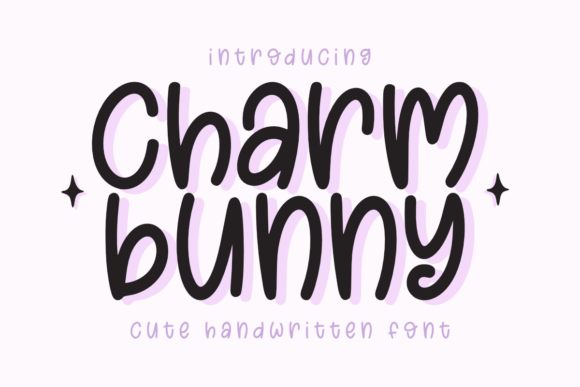
Introducing Charm Bunny Font: The Perfect Handwritten Font for Creative Moms
Are you a creative mom who loves DIY projects, journaling, and Cricut crafts? Look no further! We’re excited to introduce Charm Bunny Font, a cute and playful handwritten font that’s perfect for planners, stickers, cards, quotes, and craft projects. In this article, we’ll explore the features and benefits of Charm Bunny Font and how it can elevate your creative projects.
What is Charm Bunny Font?
Charm Bunny Font is a unique and charming handwritten font designed specifically for creative moms who love DIY projects. The font is carefully crafted to be cute, playful, and easy to read, making it perfect for a variety of projects, including:
- Planners and organizers
- Stickers and labels
- Cards and invitations
- Quotes and inspirational messages
- Craft projects, such as journaling and scrapbooking
Benefits of Using Charm Bunny Font
So, why choose Charm Bunny Font for your creative projects? Here are just a few benefits:
- Unique and playful design: Charm Bunny Font has a distinctive and charming design that will add a personal touch to your projects.
- Easy to read: The font is carefully crafted to be easy to read, even at small sizes.
- Versatile: Charm Bunny Font can be used for a wide range of projects, from planners and stickers to cards and craft projects.
- Perfect for creative moms: The font is designed specifically with creative moms in mind, making it a great choice for anyone who loves DIY projects, journaling, and Cricut crafts.
How to Use Charm Bunny Font
Charm Bunny Font is a versatile font that can be used in a variety of ways. Here are a few ideas to get you started:
- Planners and organizers: Use Charm Bunny Font to add a personal touch to your planners and organizers. You can use it to create headings, titles, and labels.
- Stickers and labels: Charm Bunny Font is perfect for creating stickers and labels for your craft projects. You can use it to add cute and playful text to your stickers and labels.
- Cards and invitations: Use Charm Bunny Font to create beautiful and unique cards and invitations. You can use it to add a personal touch to your messages.
- Quotes and inspirational messages: Charm Bunny Font is perfect for creating quotes and inspirational messages. You can use it to add a touch of personality to your quotes and messages.
- Craft projects: Charm Bunny Font can be used for a wide range of craft projects, including journaling, scrapbooking, and Cricut crafts.
Tips and Tricks for Using Charm Bunny Font
Here are a few tips and tricks for using Charm Bunny Font:
- Experiment with different sizes: Charm Bunny Font can be used at a variety of sizes, from small to large. Experiment with different sizes to find the one that works best for your project.
- Mix and match with other fonts: Charm Bunny Font can be paired with other fonts to create a unique and interesting look. Experiment with different font combinations to find the one that works best for your project.
- Use it for titles and headings: Charm Bunny Font is perfect for titles and headings. Use it to add a touch of personality to your project.
- Don’t be afraid to get creative: Charm Bunny Font is a versatile font that can be used in a wide range of projects. Don’t be afraid to get creative and try new things!
In conclusion, Charm Bunny Font is a cute and playful handwritten font that’s perfect for creative moms who love DIY projects, journaling, and Cricut crafts. With its unique and charming design, ease of use, and versatility, Charm Bunny Font is a great choice for a wide range of projects. Whether you’re creating planners, stickers, cards, quotes, or craft projects, Charm Bunny Font is sure to add a touch of personality and charm.